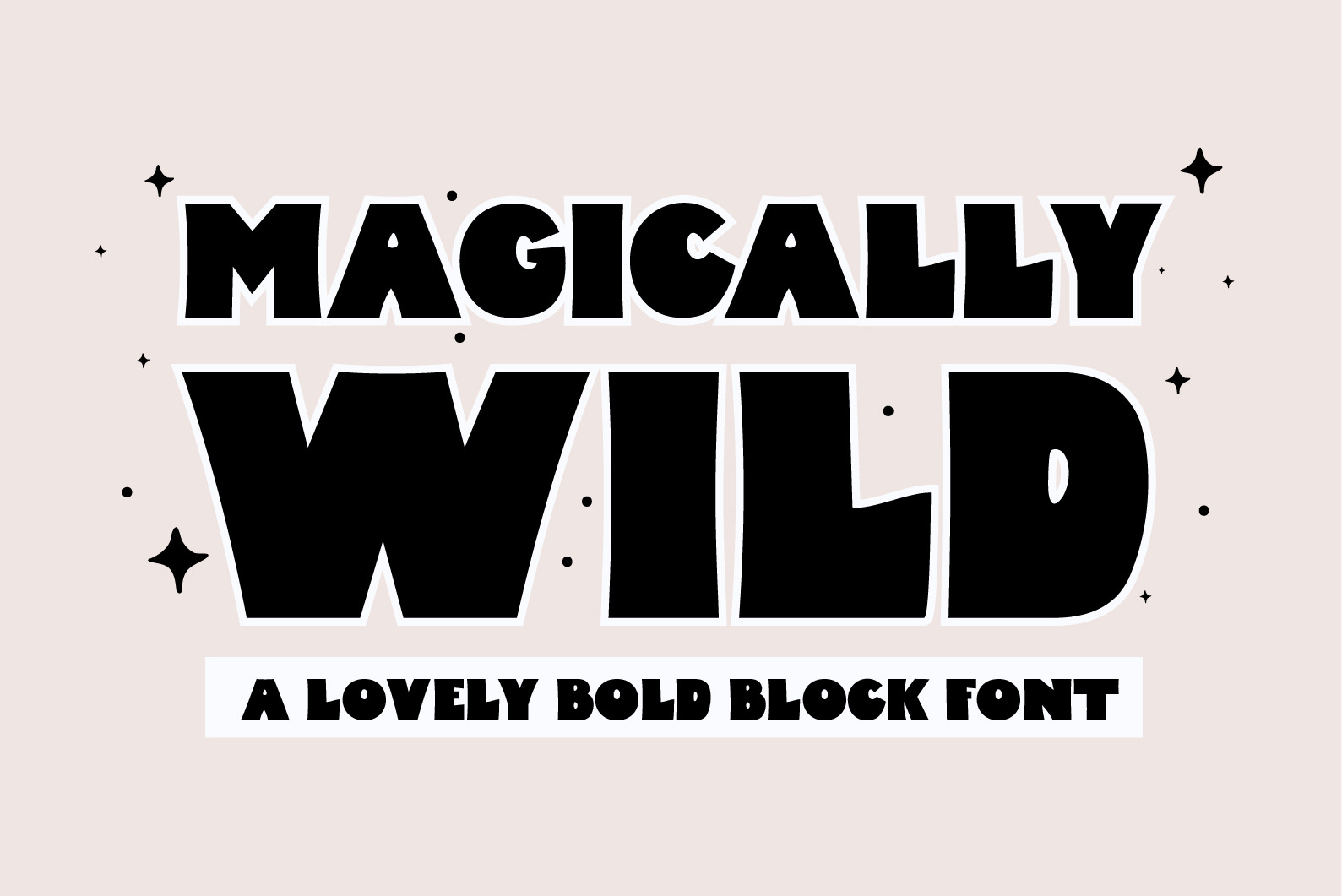
Magically Wild A Lovely Block Font
Introducing "Magically Wild" - The Lovely Handwritten Bold Block Font!
Get ready to add a touch of magic and adventure to your designs with "Magically Wild" - the font that combines bold and chunky letterforms with a whimsical and playful vibe!
With its captivating hand-drawn style, "Magically Wild" will make your text stand out with its charming appearance. Embrace the enchantment and make a statement with this irresistibly cute font!
"Magically Wild" is a versatile font that can be used for a wide range of projects. Whether you're designing a children's book, creating an eye-catching poster, or making merchandise with a magical twist, this font will add a burst of personality and charm. It's perfect for anything that needs a playful and adventurous touch!
But wait, there's more! "Magically Wild" also comes with an outlined version, adding a touch of whimsy and versatility to your designs. Use the outlined version to create stunning typography that pops off the page and captures attention. It's the perfect complement to the bold block style, giving you even more creative possibilities!